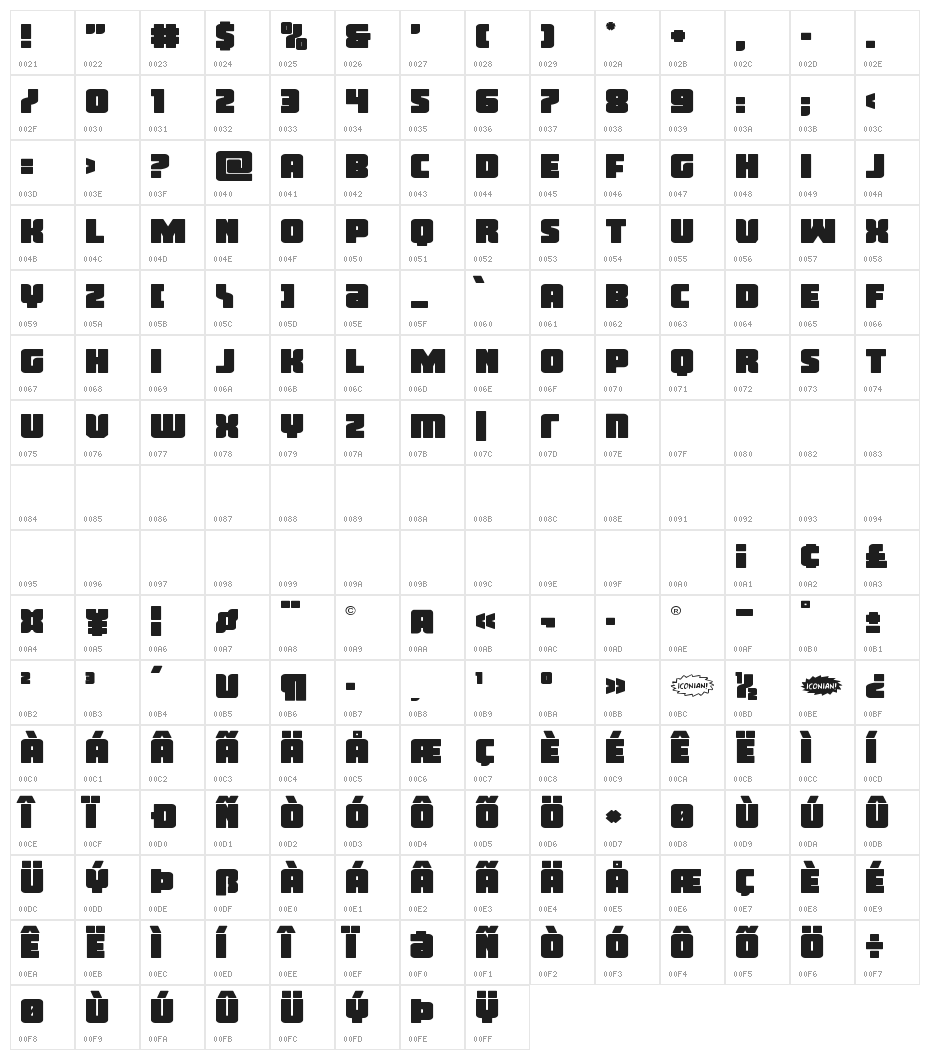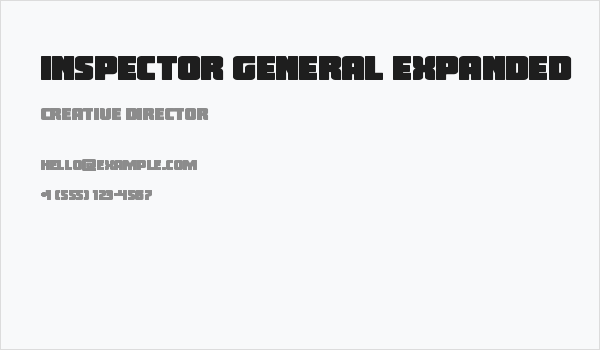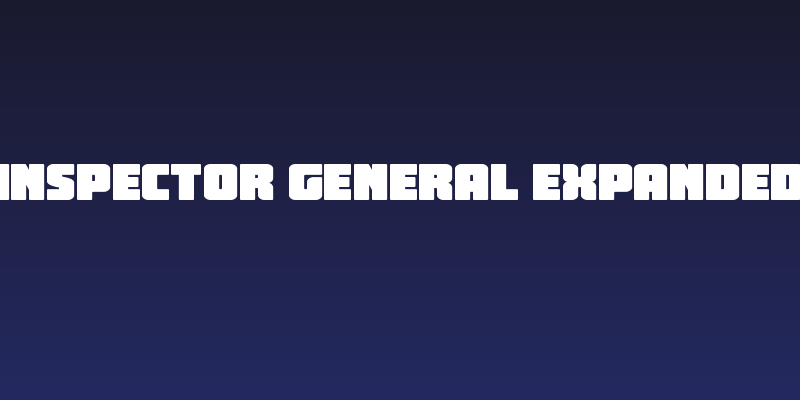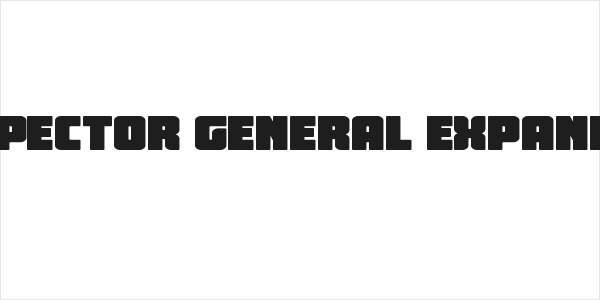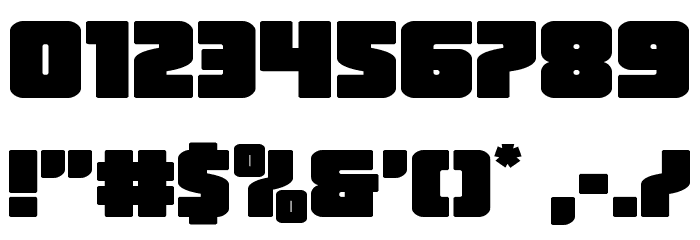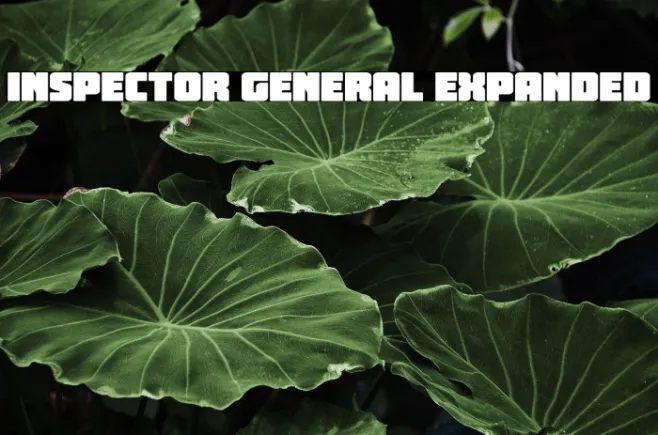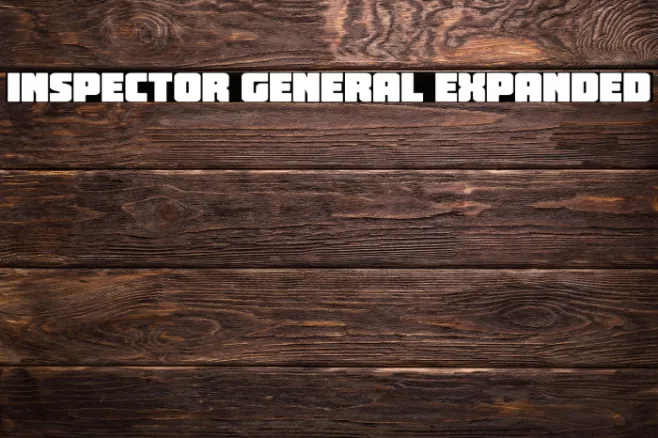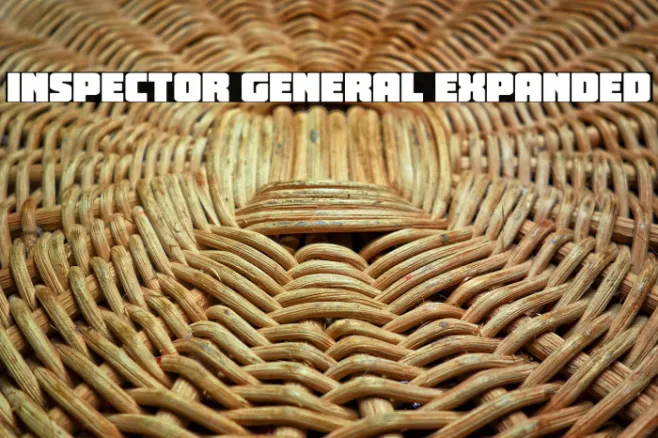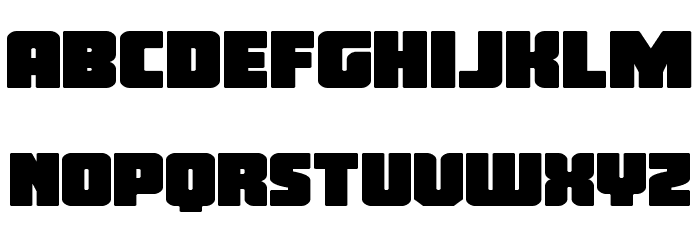
Inspector General Expanded Font
Inspector General Expanded Description
This font features a bold and robust design with thick, block-like characters that convey a sense of strength and stability. The letters are uniformly wide, creating a cohesive and powerful visual impact. The geometric shapes and straight lines give it a modern and industrial feel, while the expanded width adds a unique touch. The font is highly legible, making it suitable for attention-grabbing headlines and impactful designs. Its boldness and uniformity make it ideal for projects that require a strong visual presence.
| Proposed Projects | Ideal for branding, posters, headlines, and any design requiring a strong, impactful presence. |